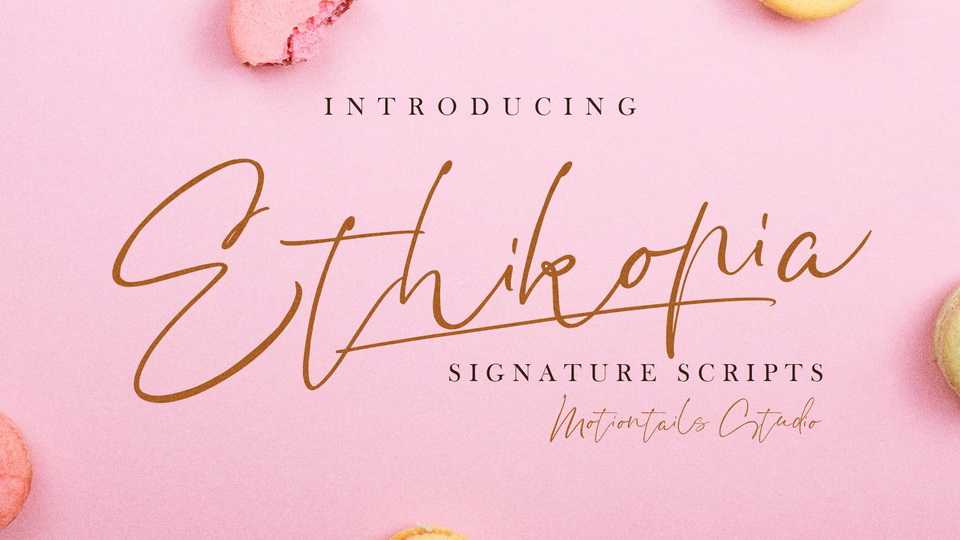
Download Ethikopia font, a passionate and energetic signature style handwritten typeface. Ethikopia font has the potential to bring each of your creative ideas to the highest level.
Designer: Motion Tail.std